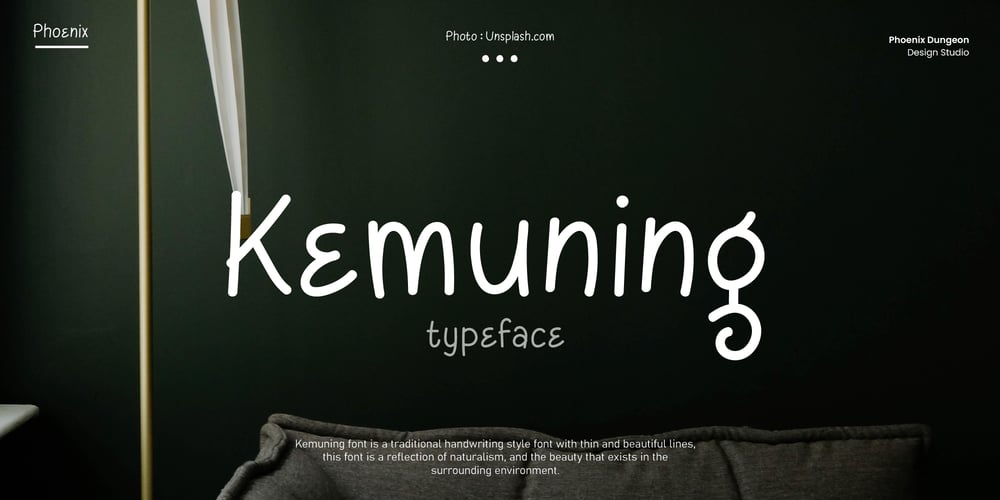
Kemuning Font Family was designed by Alif Naufal Muzakki and published by Phoenix Group. Kemuning contains 2 styles and family package options. Kemuning font is a traditional handwriting style font with thin and beautiful lines, this font is a reflection of naturalism, and the beauty that exists in the surrounding environment.